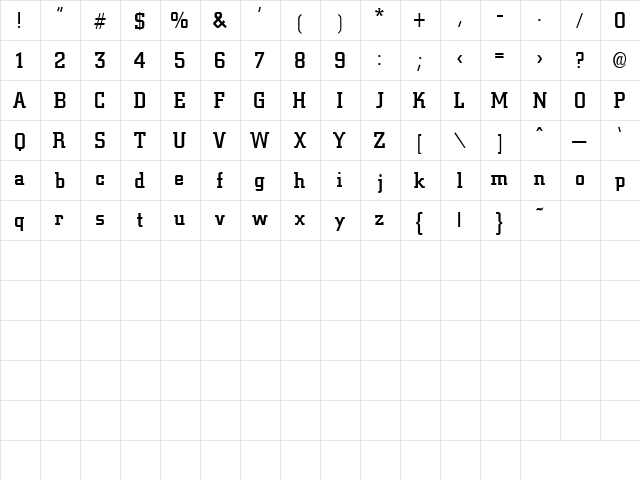
Warwick 1 Regular Font Preview
Warwick 1 Regular
Design Context for Warwick 1 Typeface
Warwick 1 offers clean, dependable letterforms without strong stylistic allegiance, making it a practical choice for designers who need flexibility.
Pro Tip: Use Warwick 1 in both headline and body roles to test its range before committing to a single application.